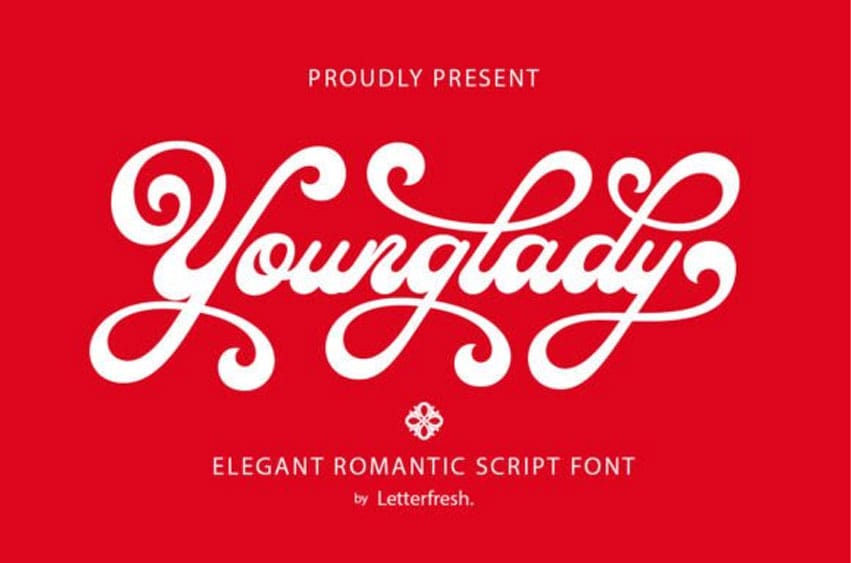
Younglady Font is a carefully crafted script typeface designed for those who value timeless aesthetics and easy flexibility. With its natural flow, bold strokes, and modern-vintage appeal, Younglady is perfect for logos, product labels, social media graphics, and stationery.
The inclusion of ligatures and alternate characters ensures each design is as unique and expressive as your vision.